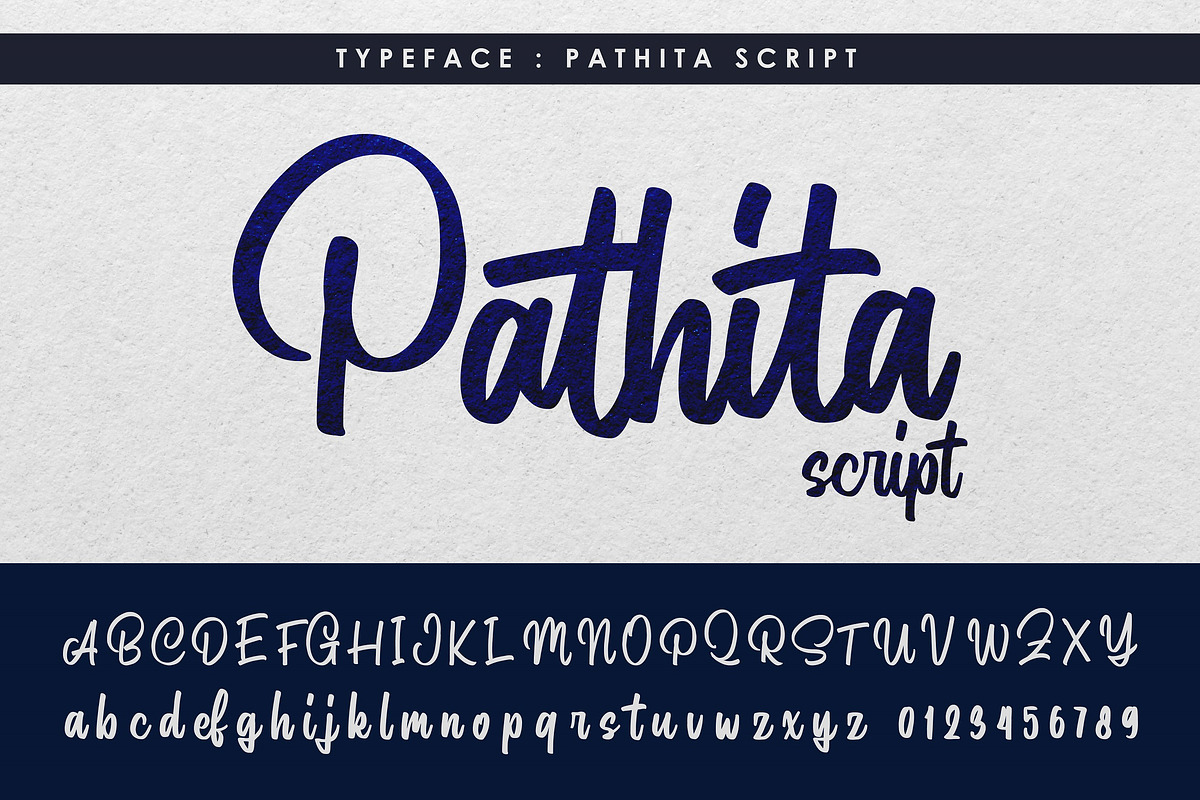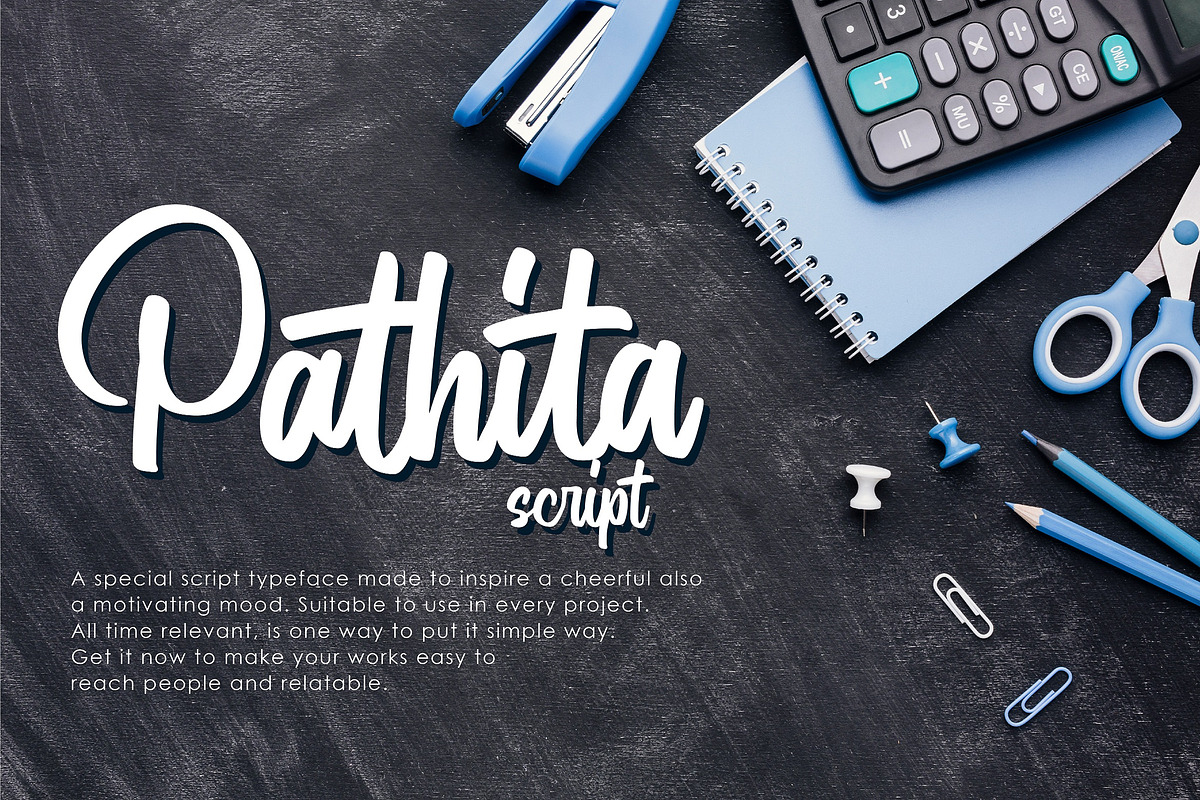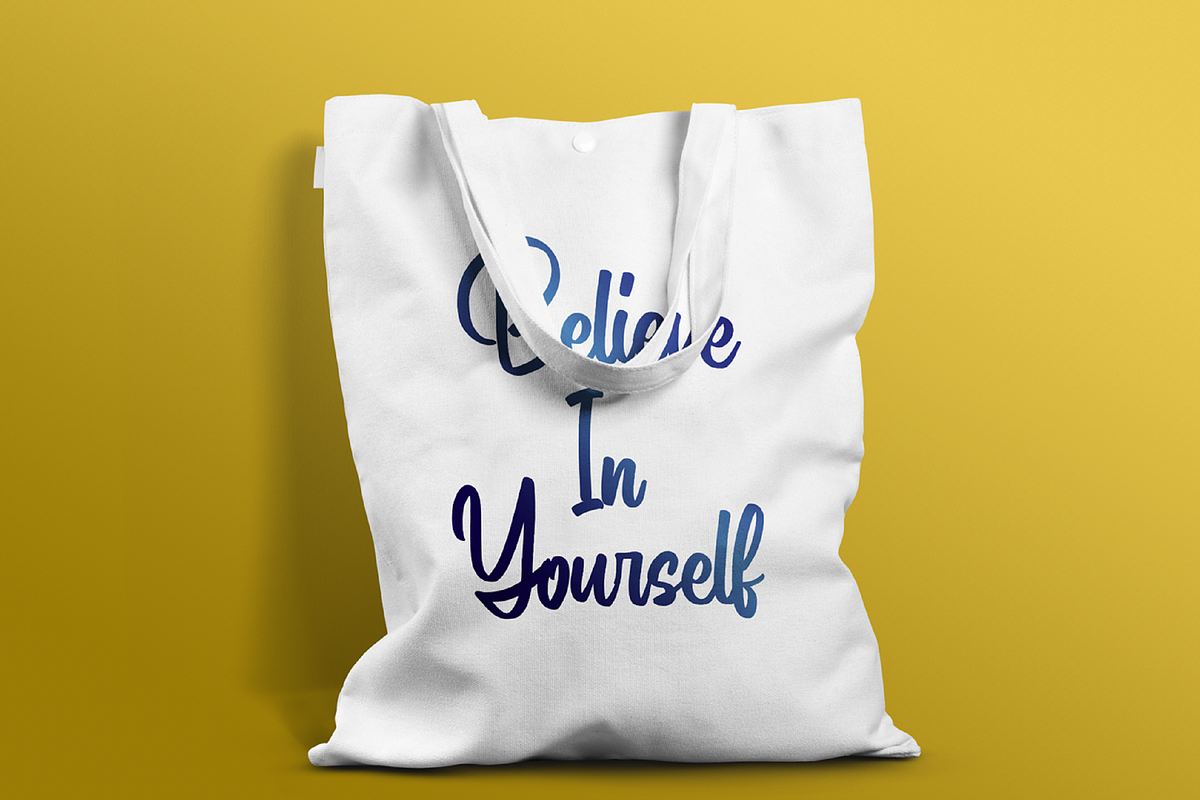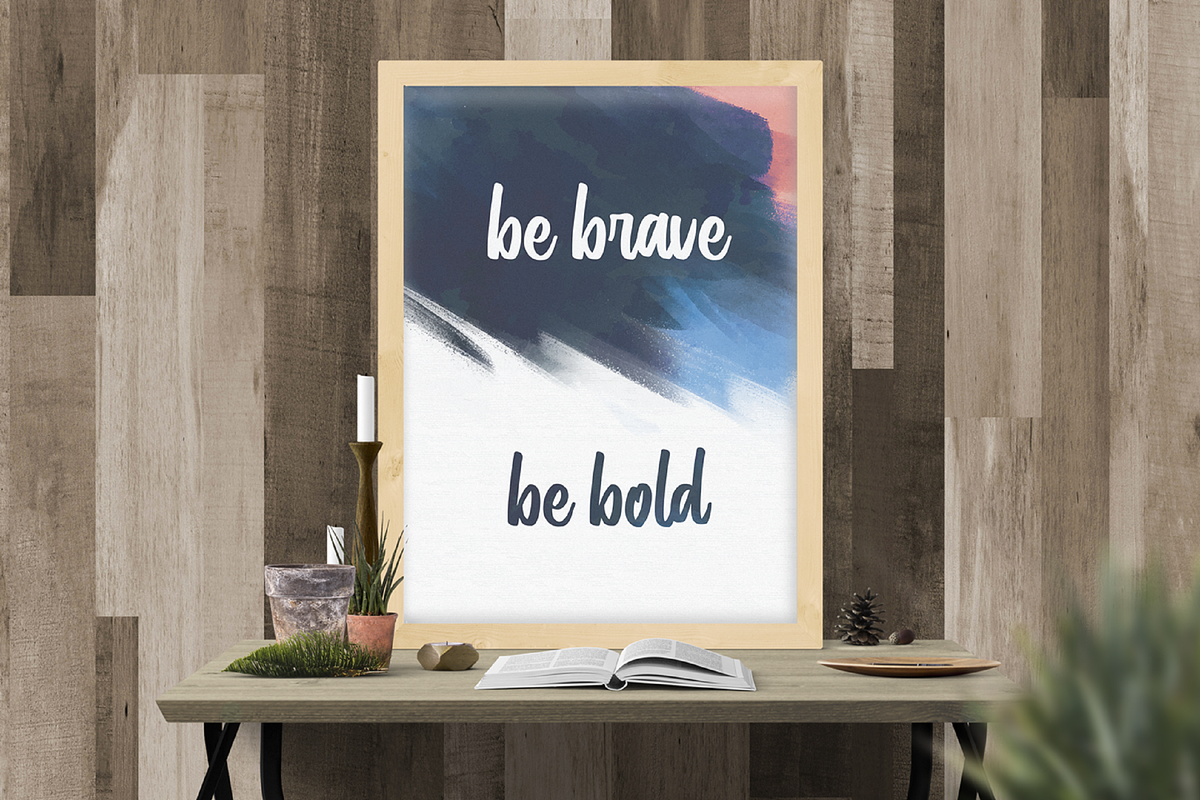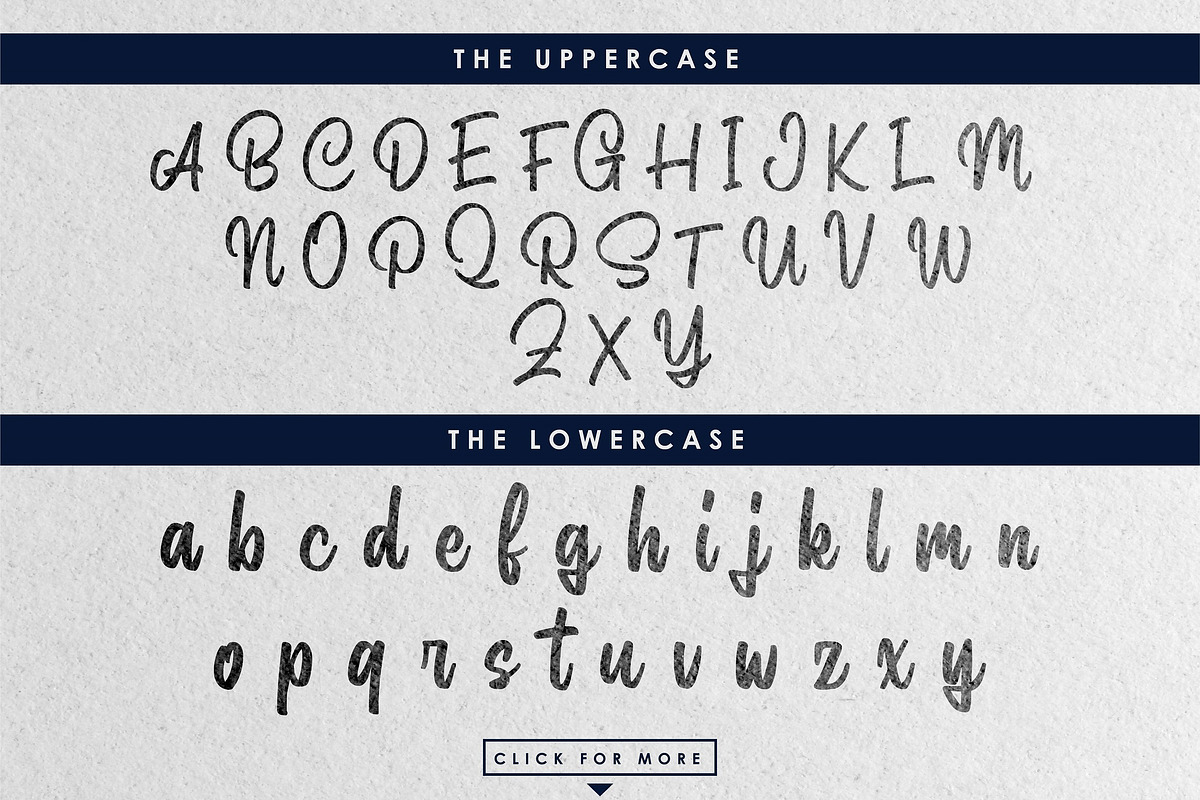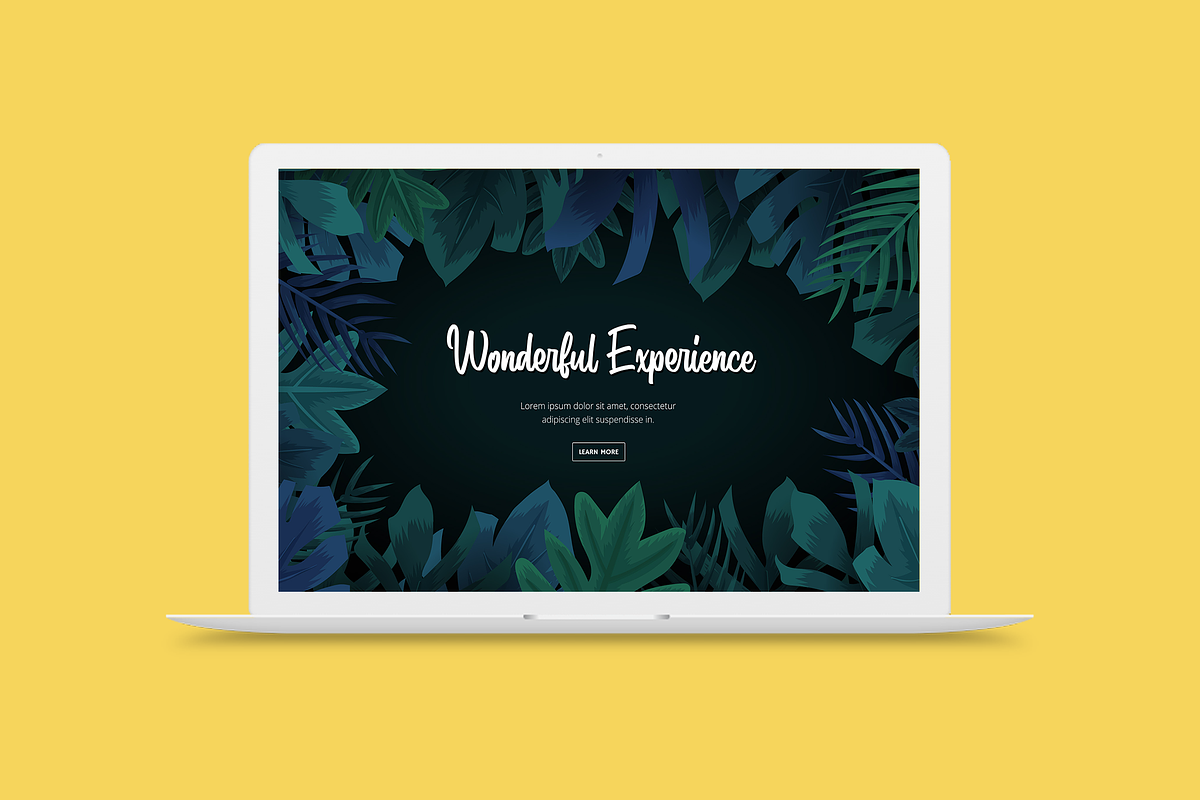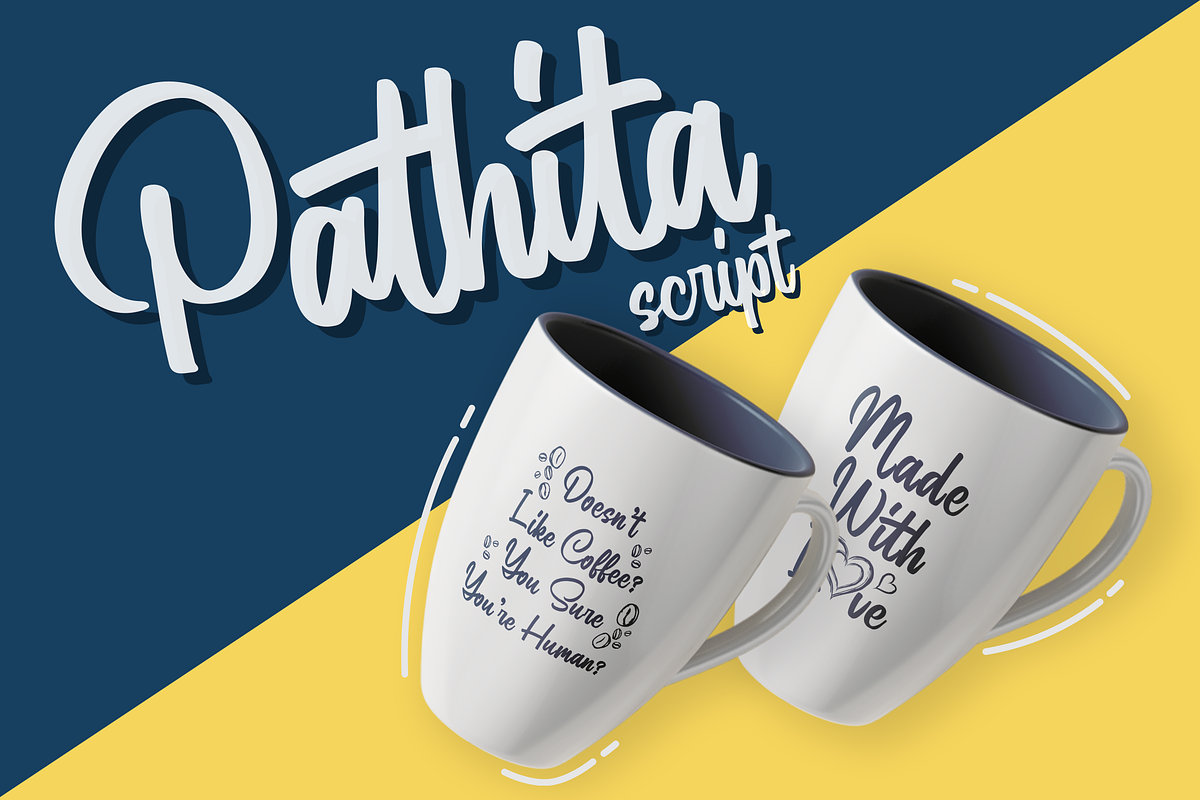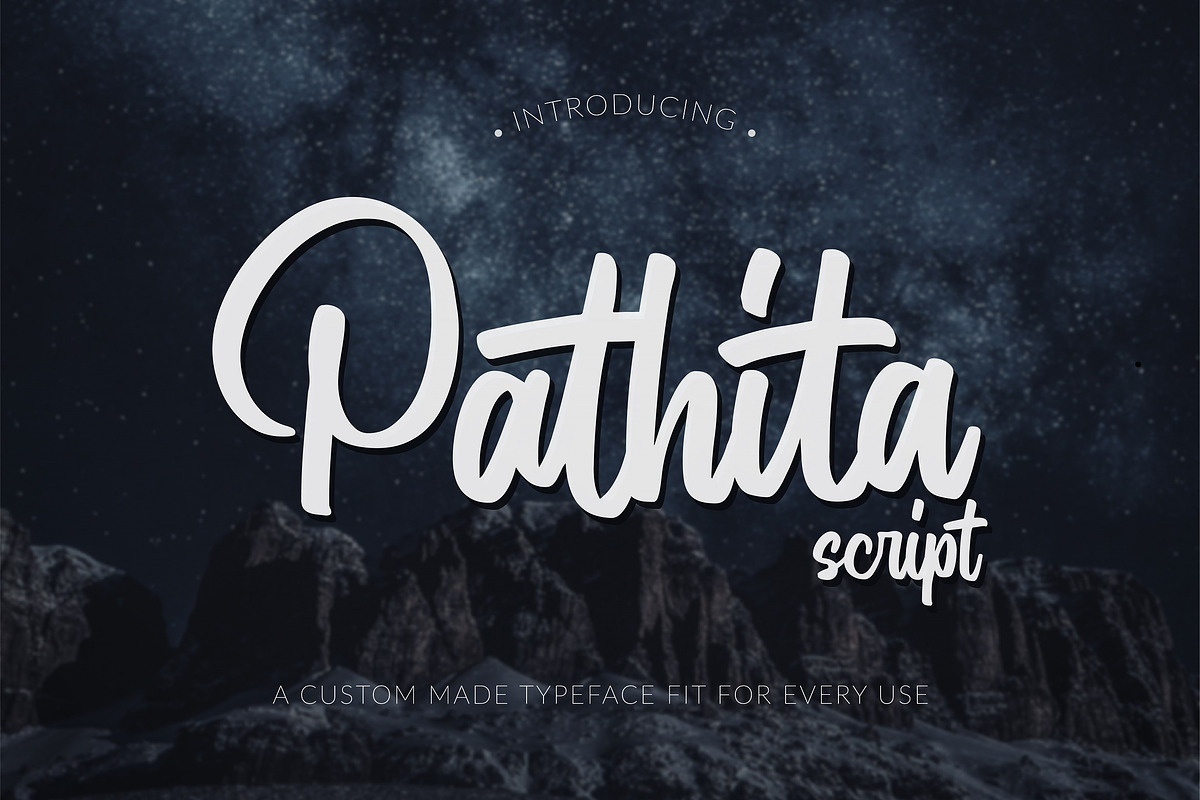
Modern Script Font - Pathita
Bring out your true self with the Pathita Script!
Being a designer, you need to convey information to those who will - and to some extent might - see your work of art! The thing is, the ideal design is there, but how can you bring it out?
We are hoping that through this simple cursive font, you can maximize your designs! In turn, you’ll communicate the perfect idea to your audience. It will comfortably fit inside your design so that there will be no awkwardness or a jarring feel, giving solace to the viewers.
Fully realize your boldness and show your lavish side with the Pathita Script. Connect with your audience with a little perspective as these cursive letters connect each other in a beautiful manner. After all, these days, branding is all about making a connection with your audience, right?
The Pathita Script will be the perfect addition to aid you in your journey to be who you really are. Let the world see you and your beauty, bring it out through your handiwork and give your viewers a new perspective!
Why Modern Script Font - Pathita is worth a look